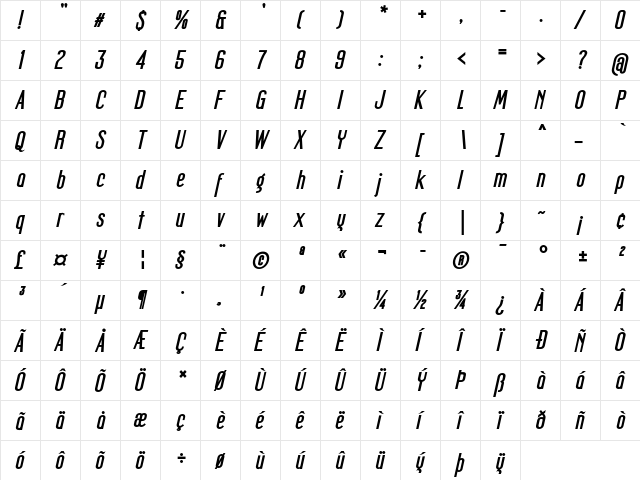
Mager Fat Italic
Design Context for Mager Typeface
Mager is a composed and adaptable typeface that performs quietly and consistently across a wide range of design contexts. The dynamic lean of this cut emphasises speed and emphasis in any layout.
Pro Tip: Try Mager for annotation and caption copy alongside an upright companion — the contrast in angle creates a dynamic but ordered typographic system.